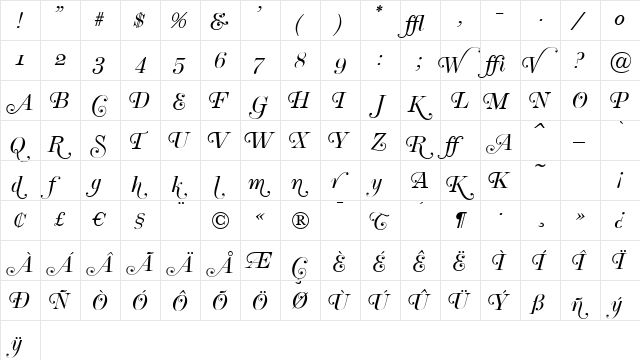
CavettoItalicAltJF Regular
Design Context for CavettoItalicAltJF Typeface
CavettoItalicAltJF is a composed and adaptable typeface that performs quietly and consistently across a wide range of design contexts. Its italic angle brings a sense of urgency and motion to the letterforms.